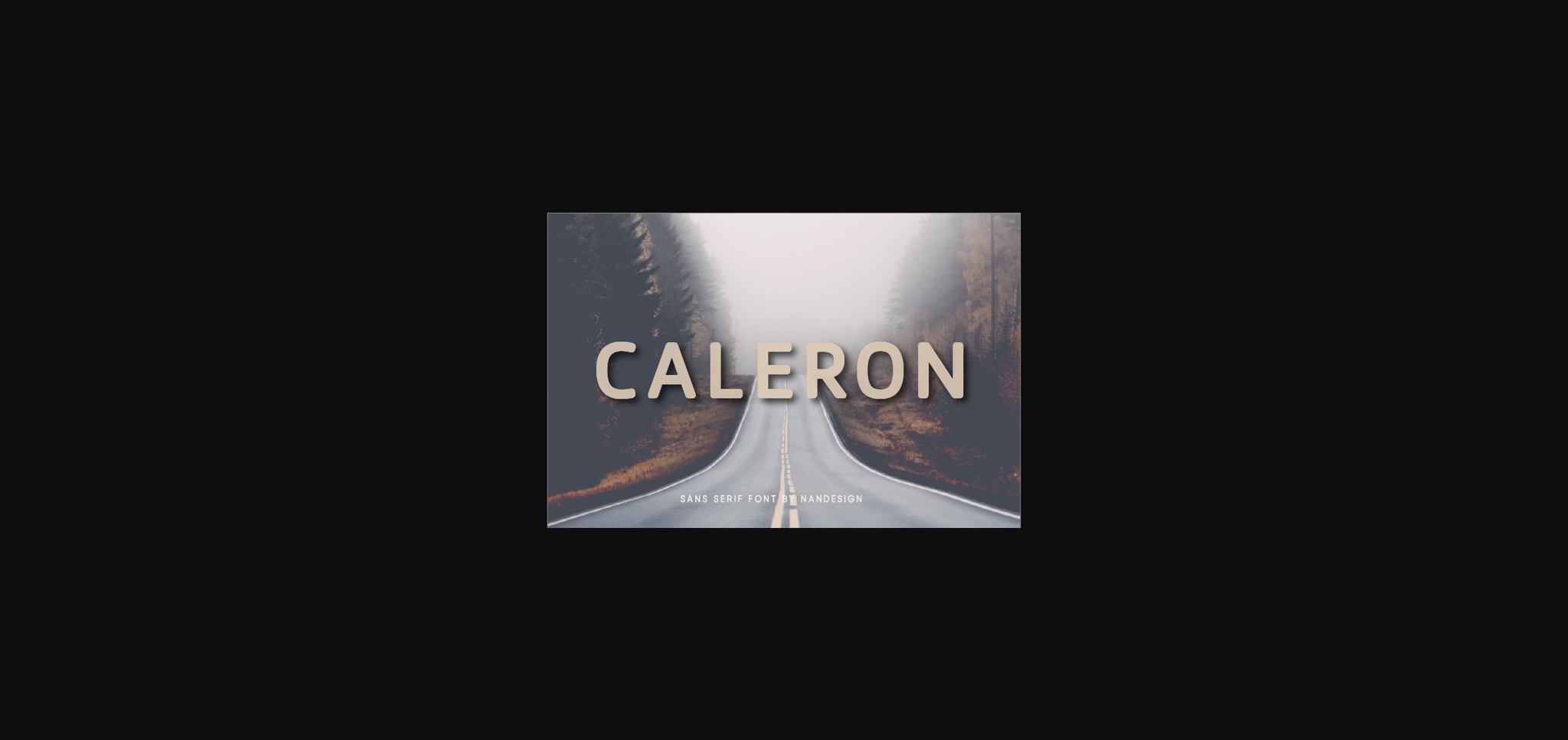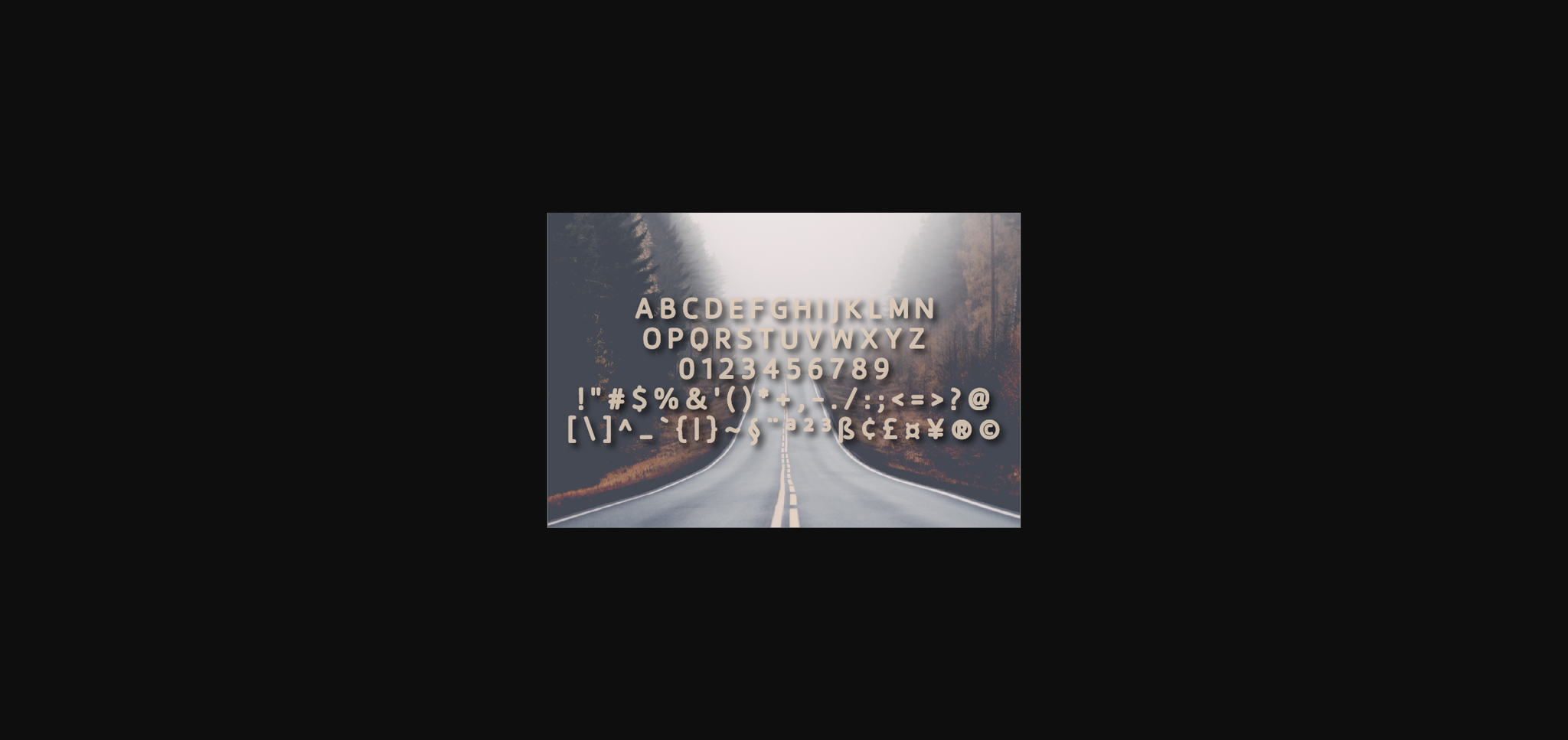
About Caleron Font
Caleron is a bold and chunky charactered sans serif font. Suitable to a wide variety of designs due to its neat and simple style, Caleron has the potential to become your favorite go-to font, no matter the occasion!